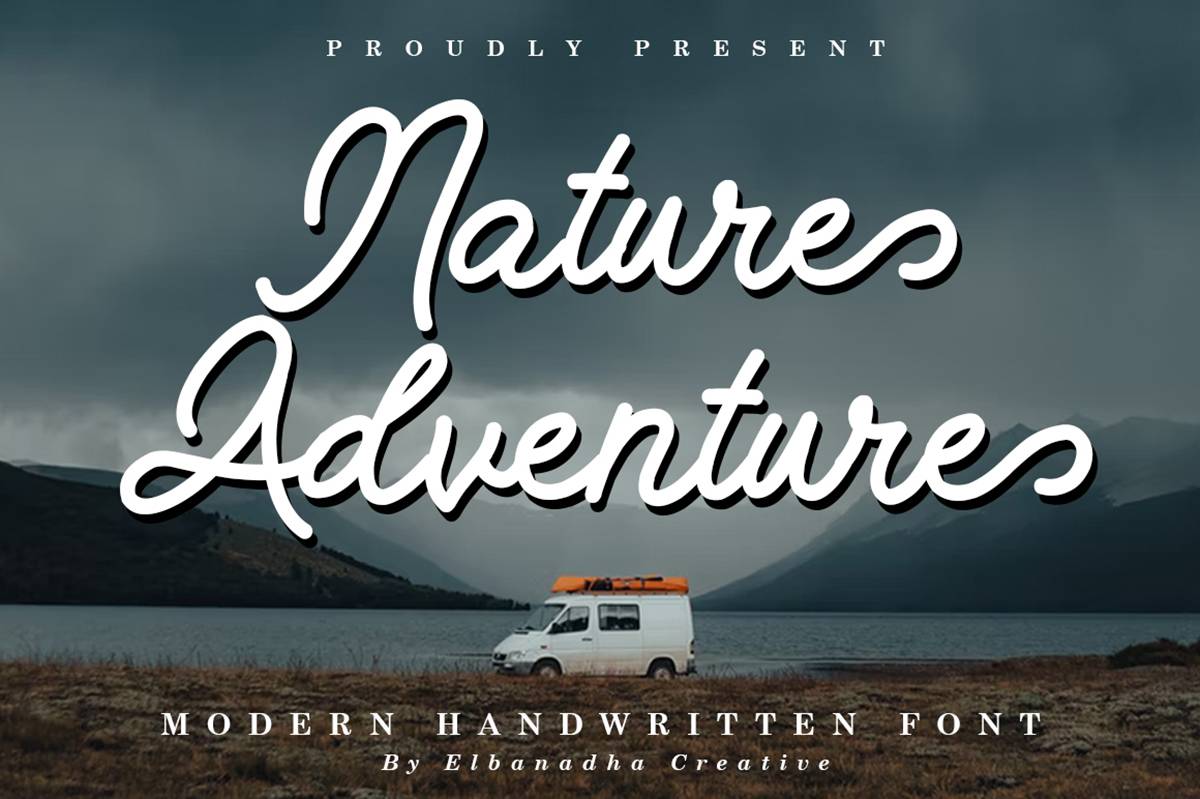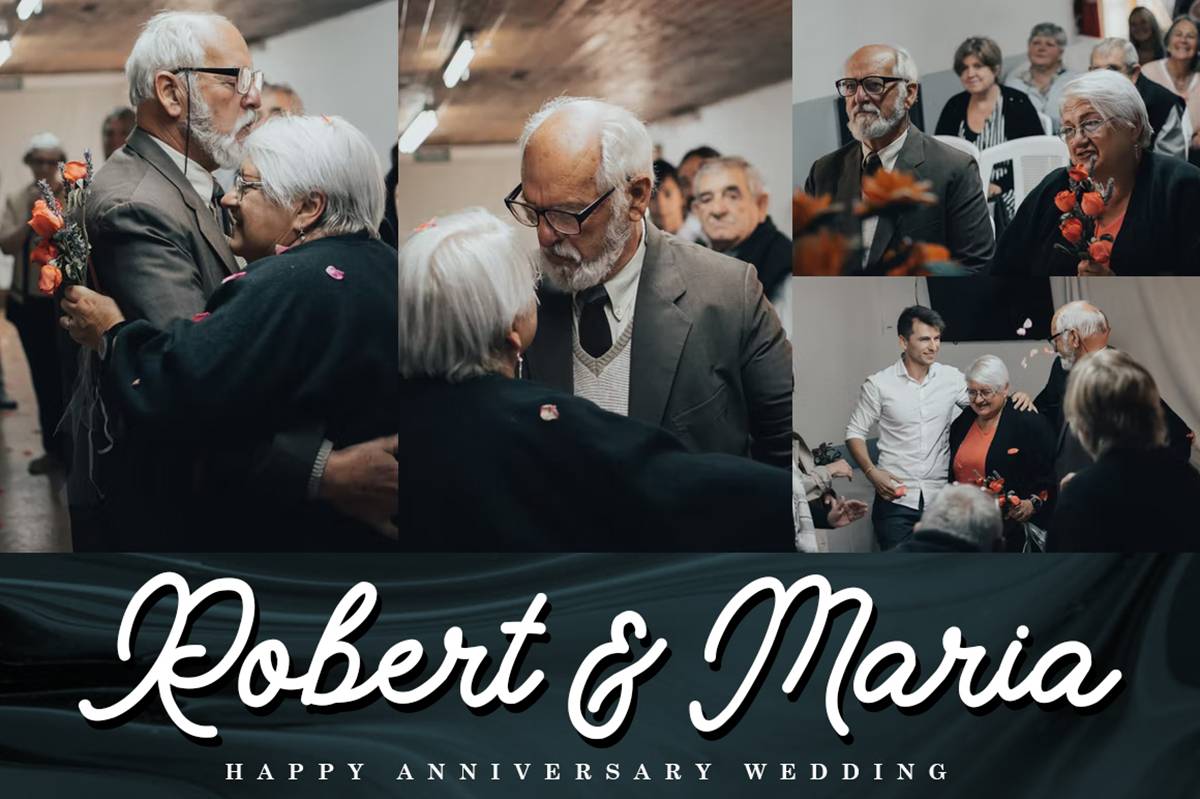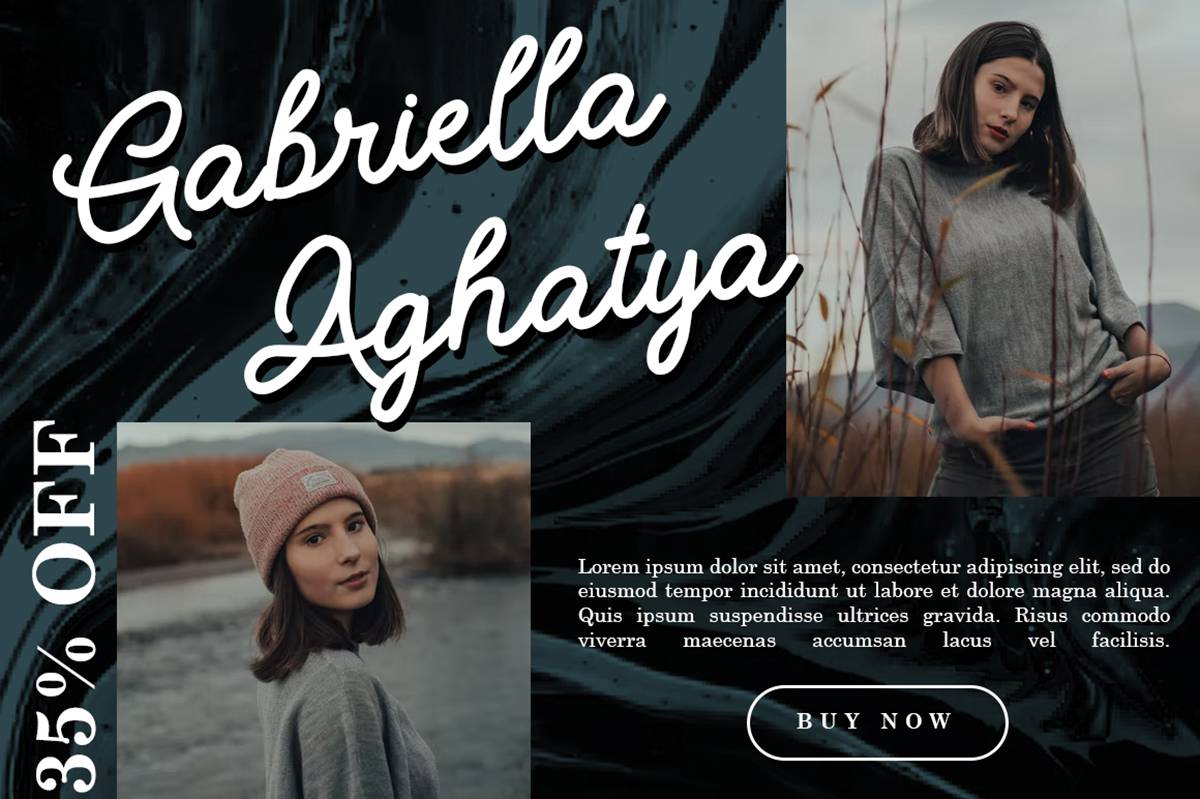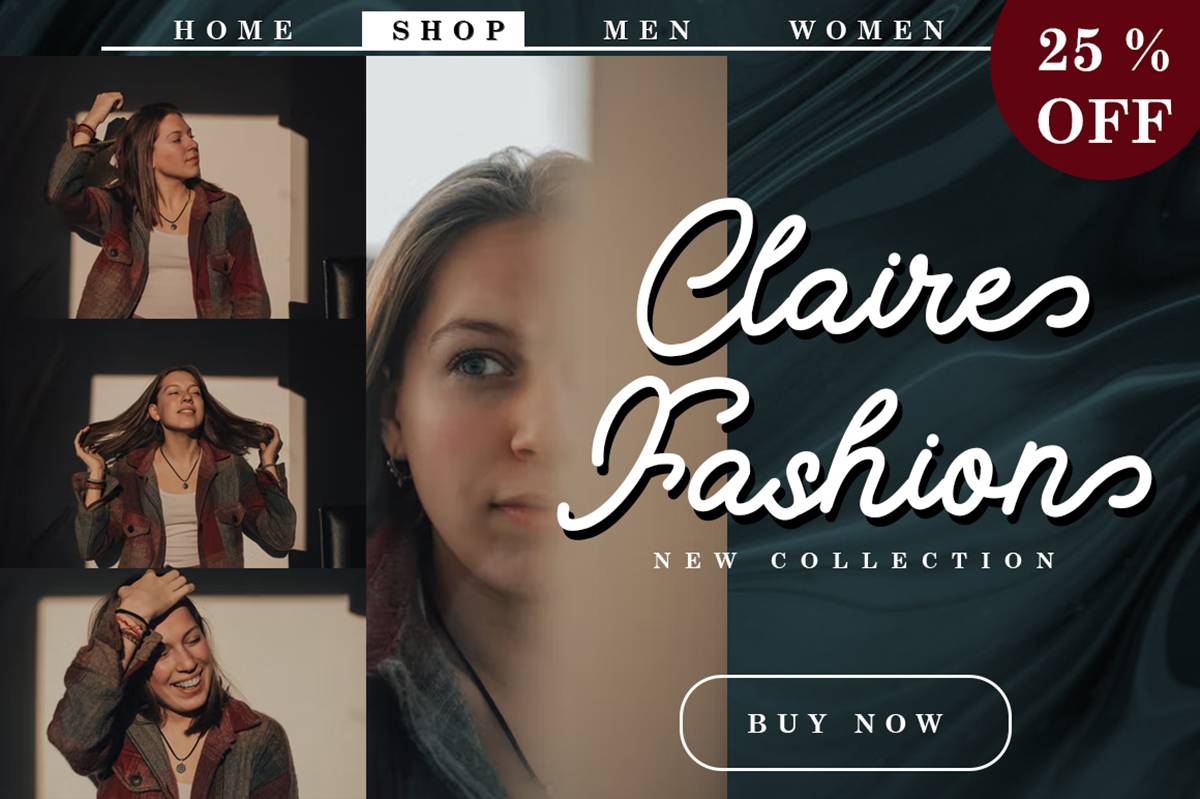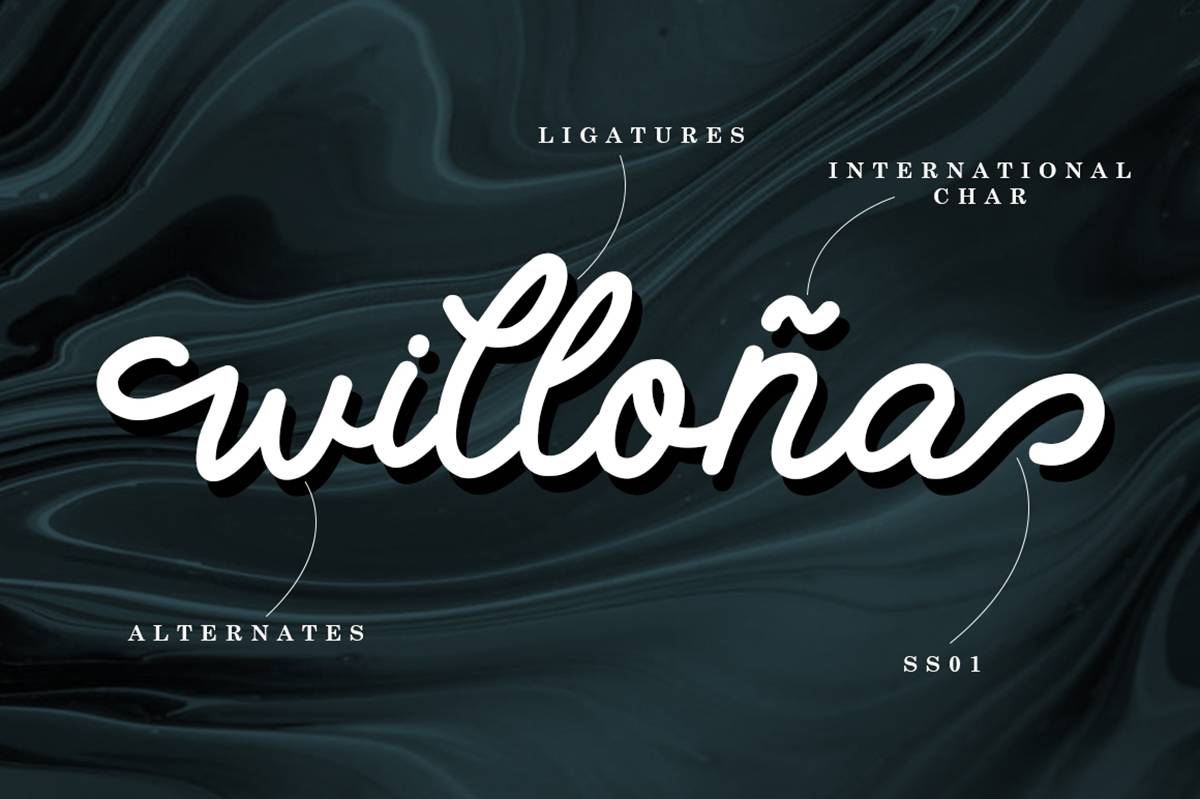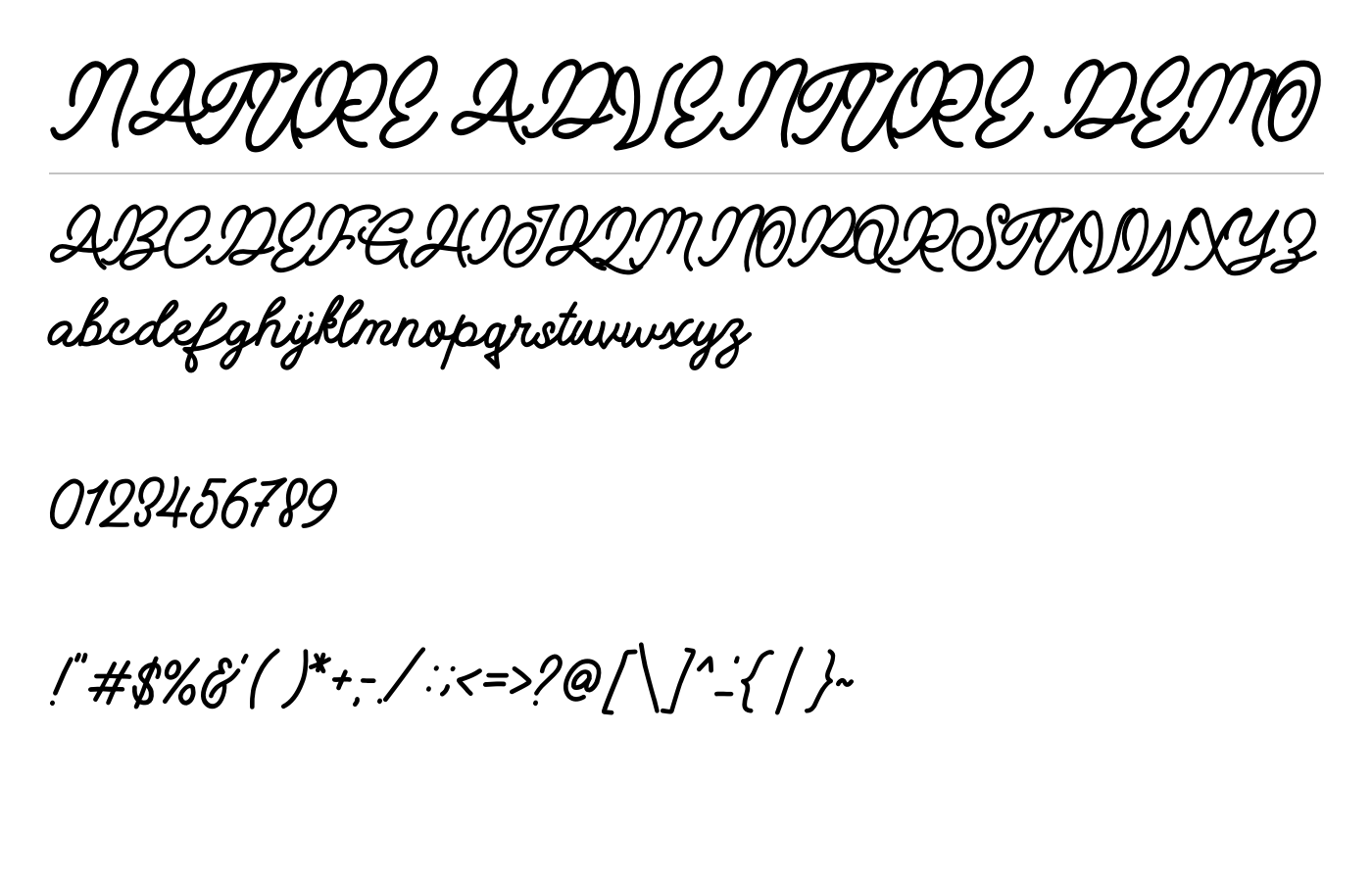
Nature Adventure Font is a lively, script-style typeface with a smooth, handwritten feel. Its light weight and moderately condensed width create an elegant yet playful look, making it perfect for designs that want to convey a sense of creativity and approachability, such as branding, invitations, or casual headlines. The font's connected letterforms and slightly angled strokes give it a natural flow that works beautifully for projects related to lifestyle, adventure, and personal expression.
Nature Adventure Font
About Nature Adventure Font
| Font family | Nature Adventure Font |
| Release date | 2022-02-11 |
| Designer | Elbanadha Creative |